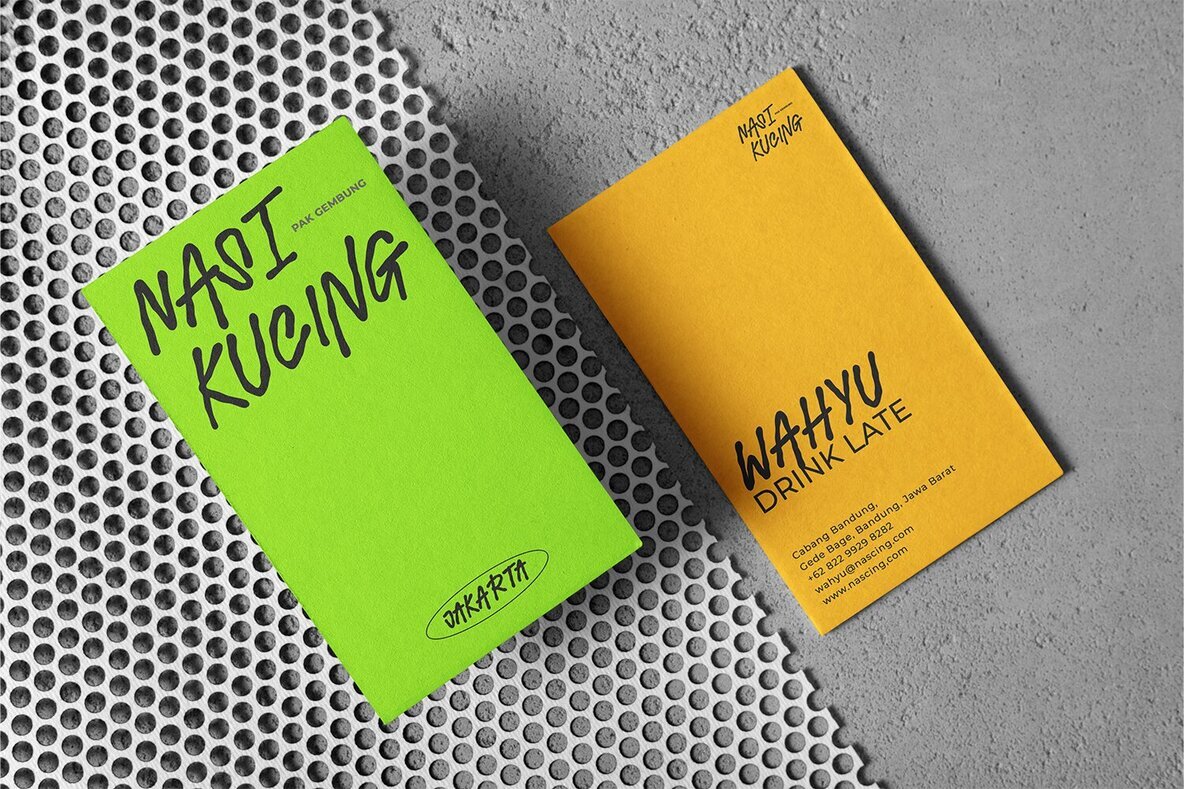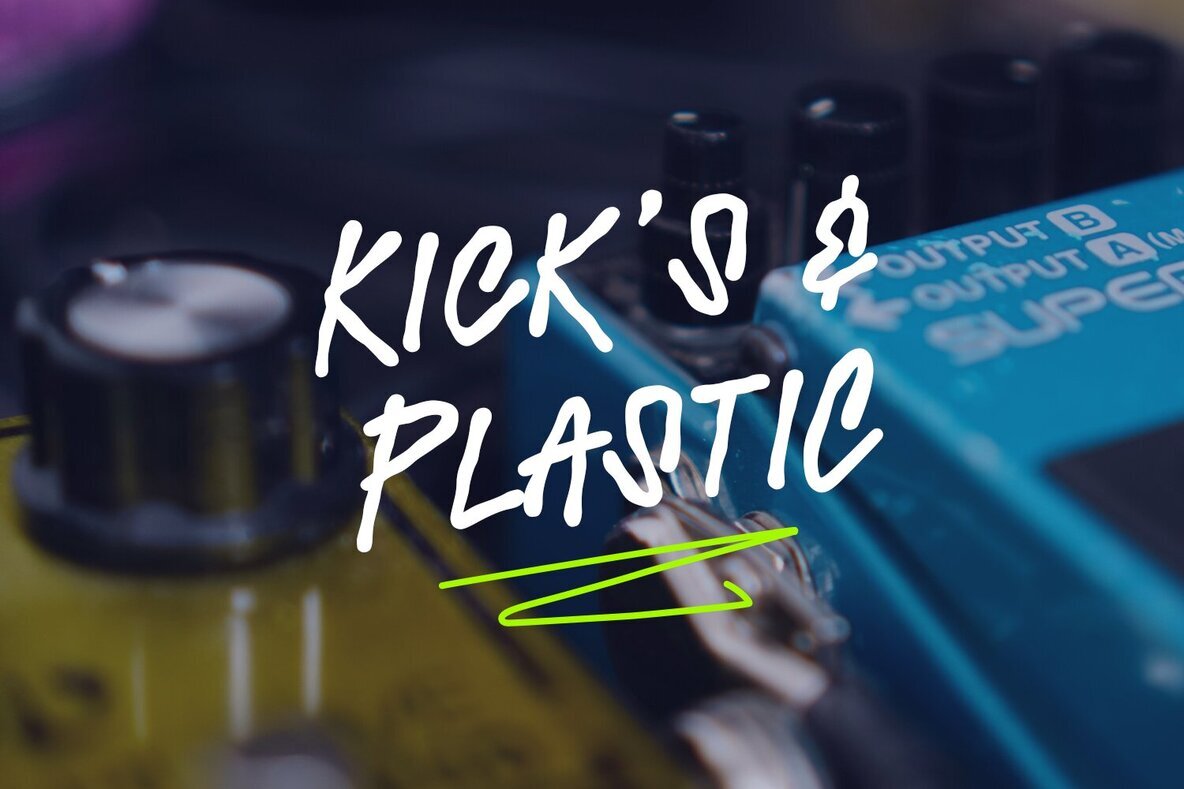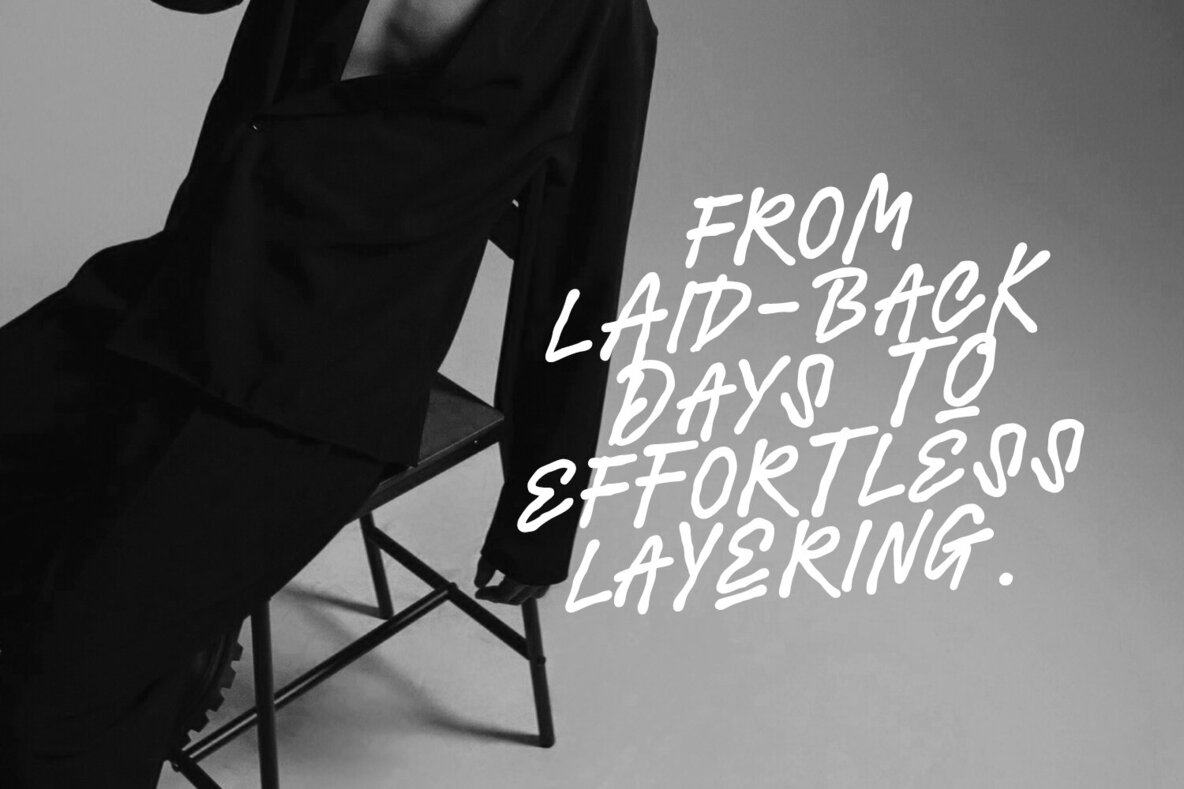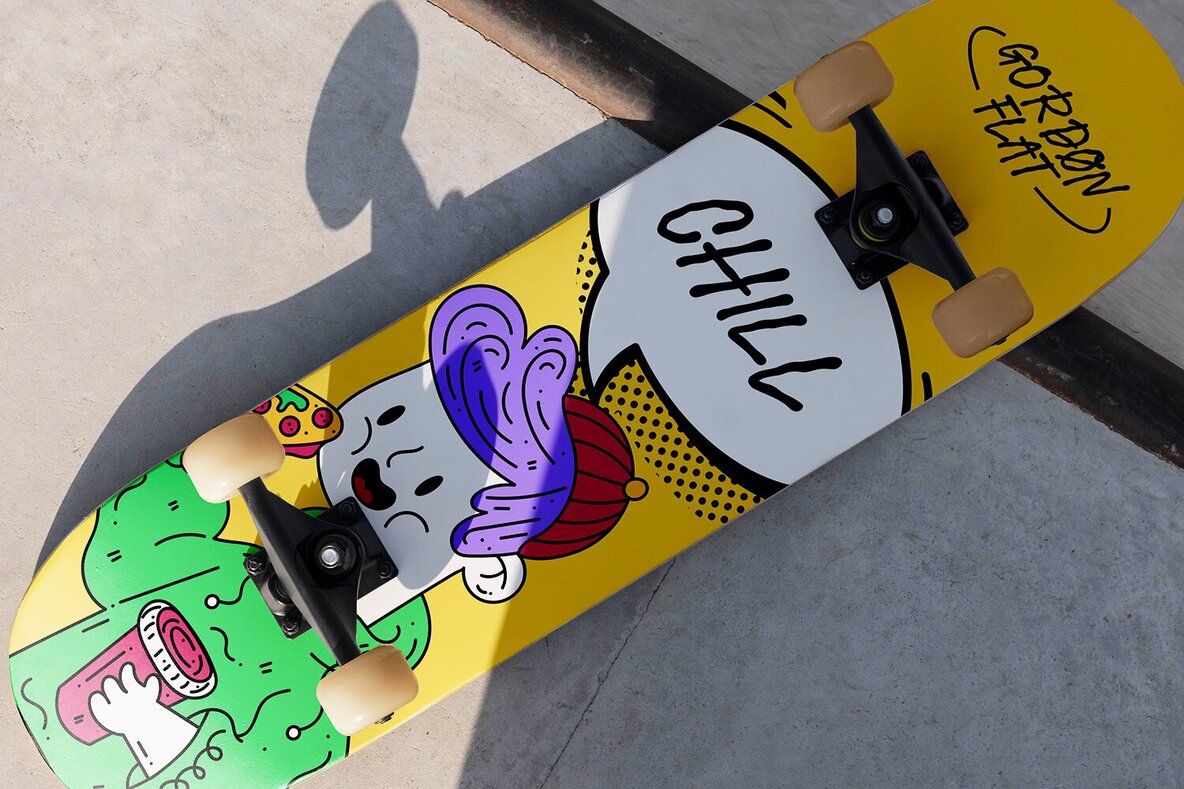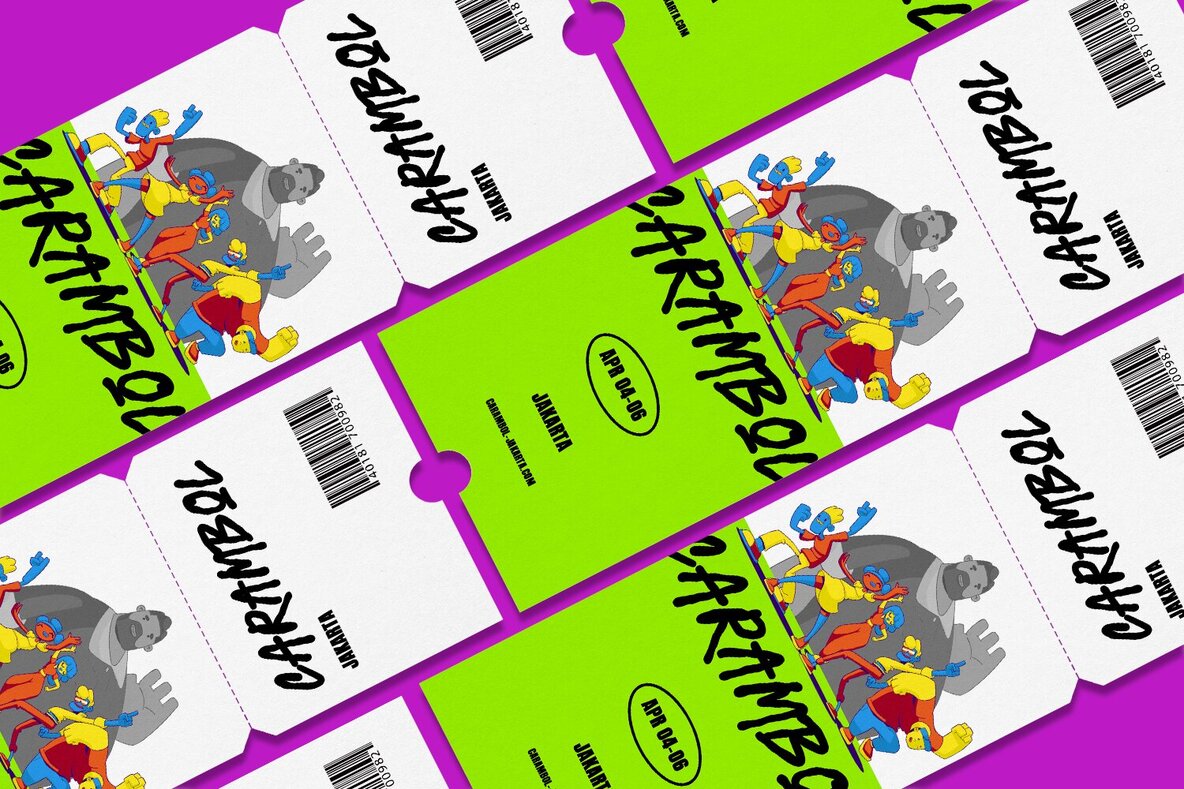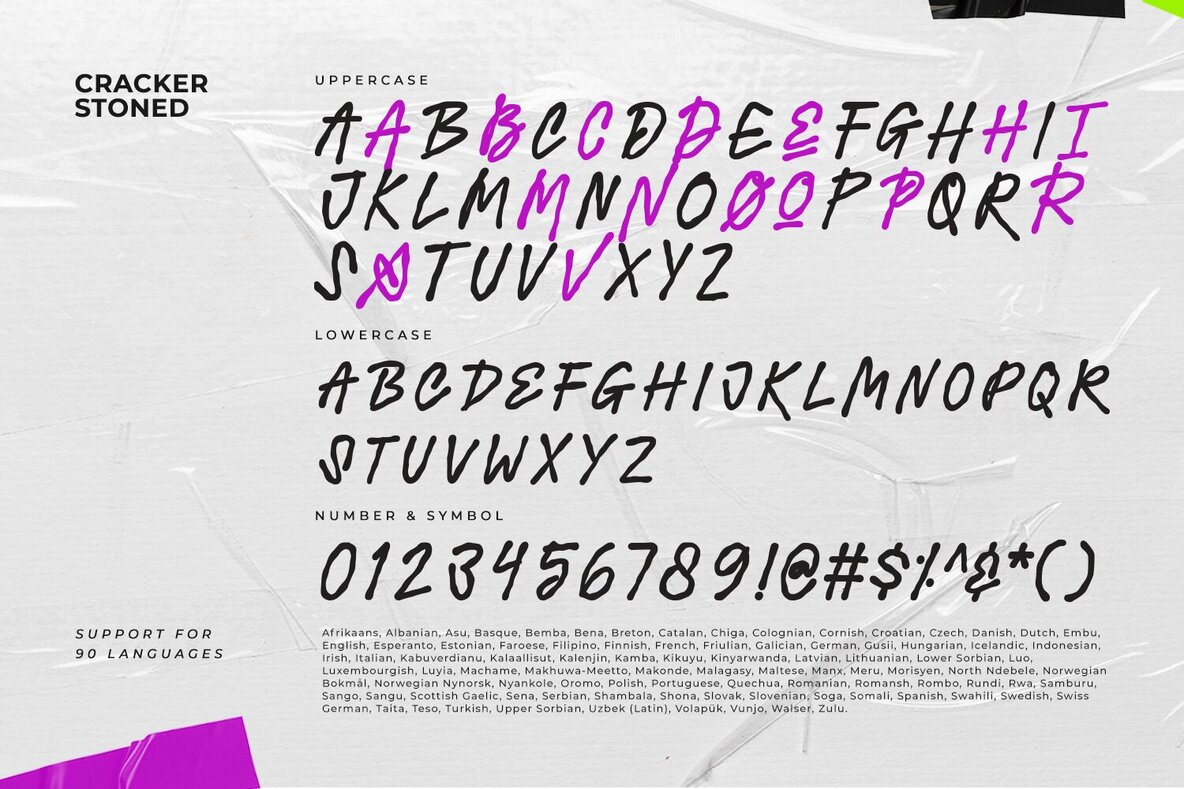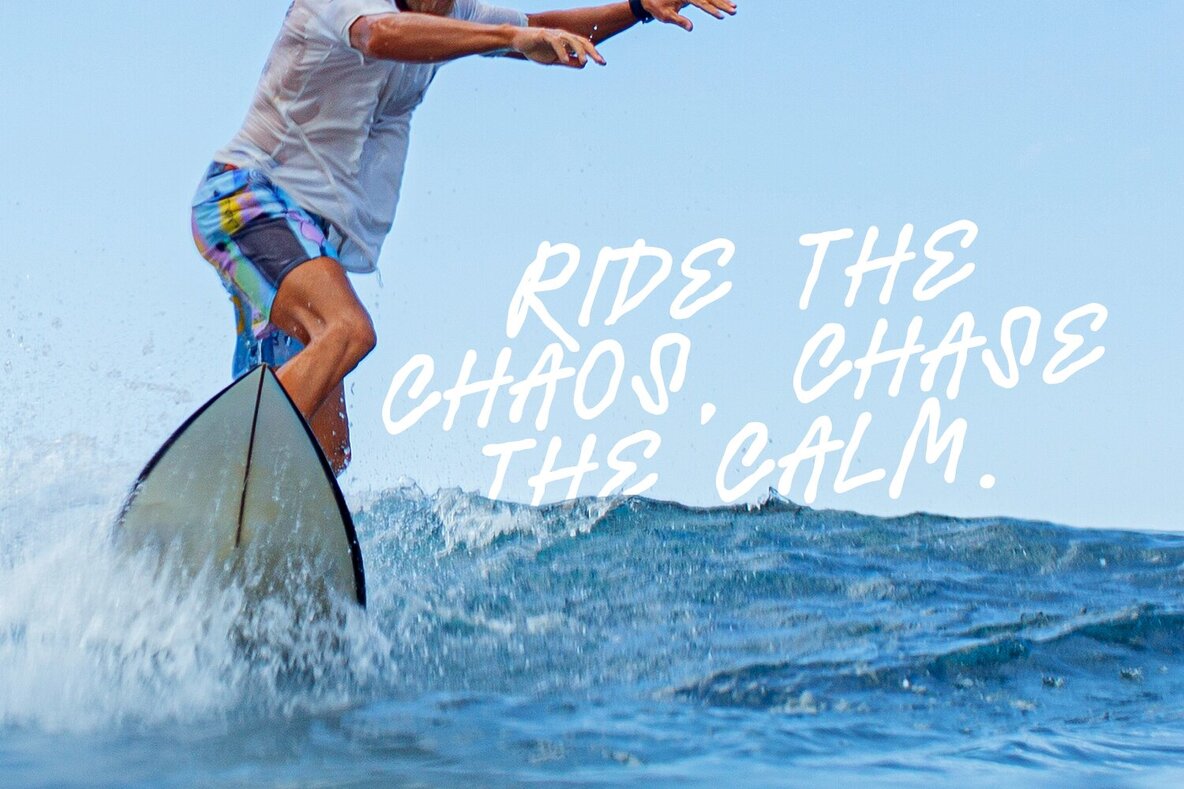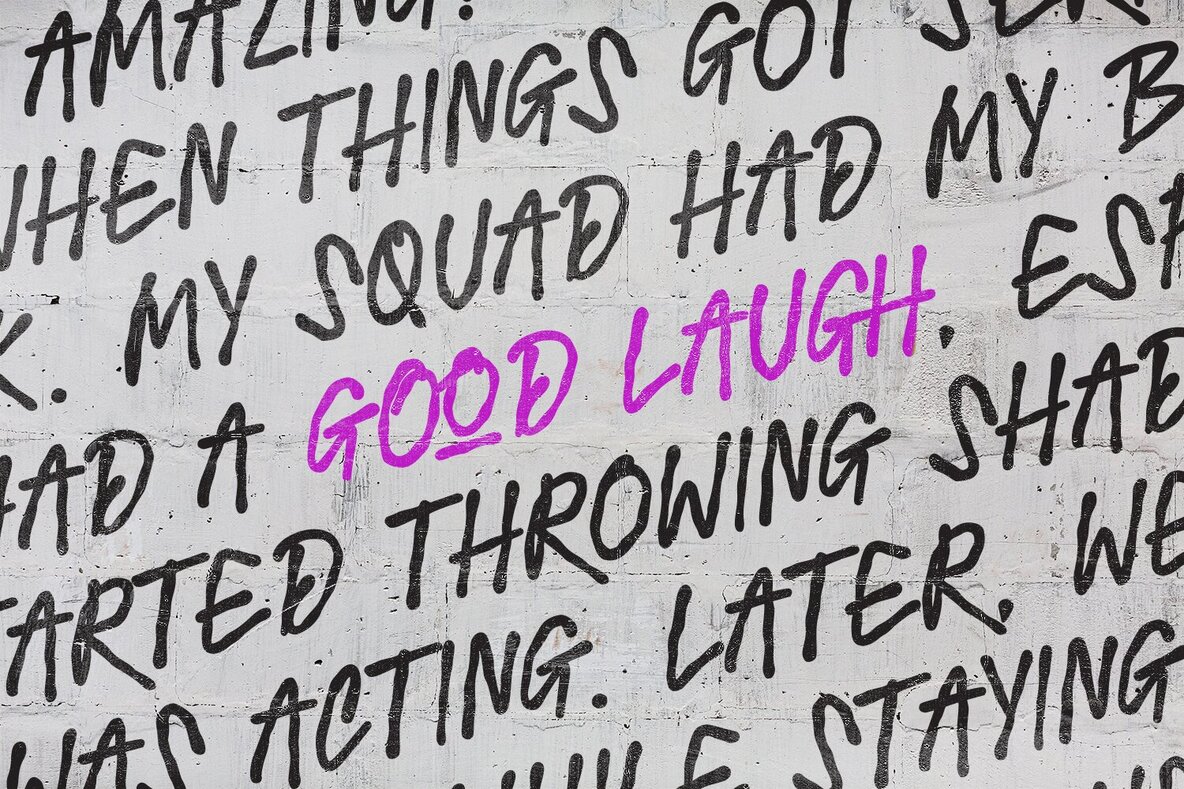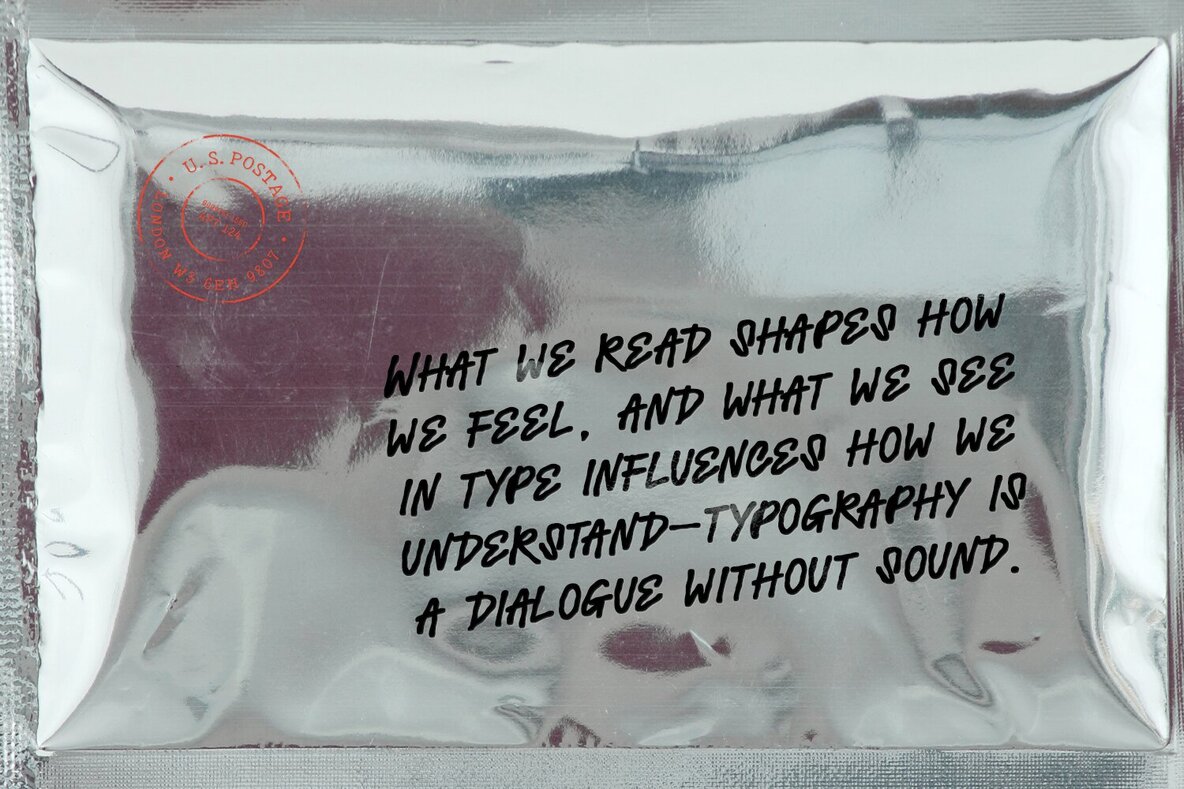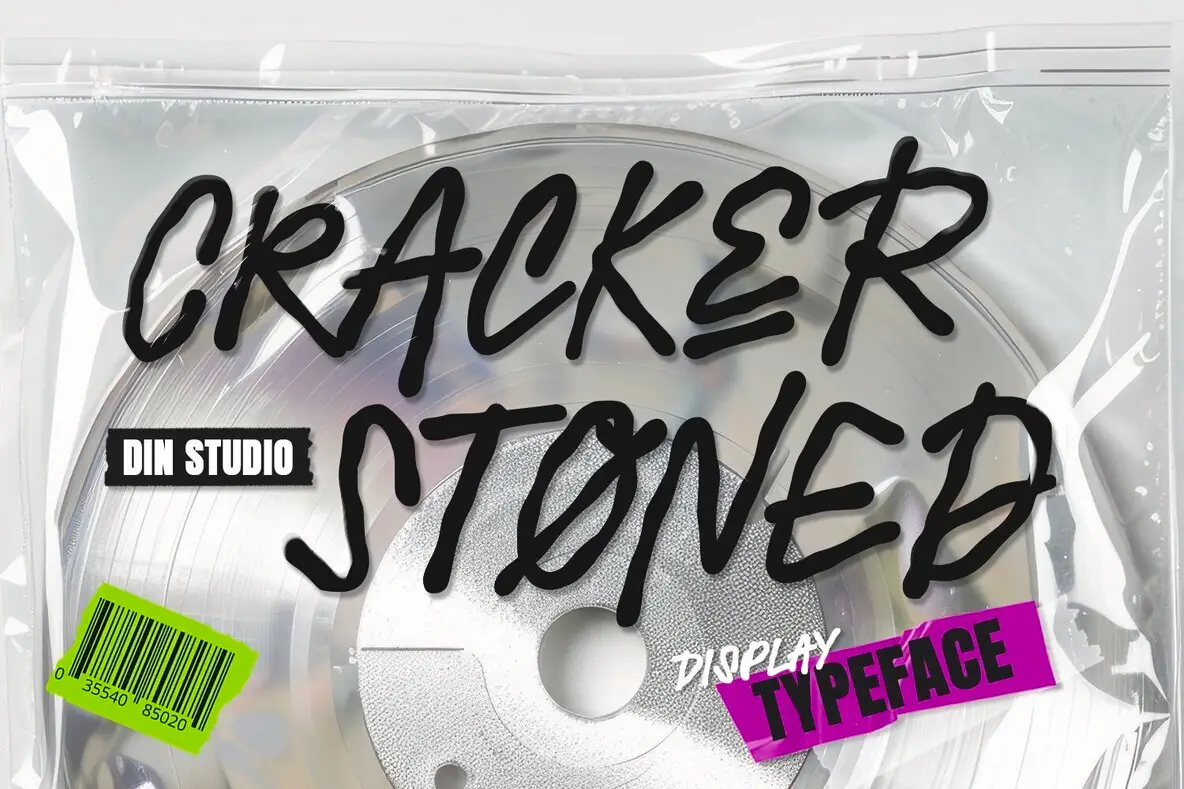
Cracker Stoned Font
Cracker Stoned Regular
Cracker Stoned is a distinctive display font that merges delicate lightness with playful wavy outlines, offering a fresh artistic vibe to your designs. Crafted with meticulous attention to detail, each letter maintains consistent proportions, delivering a harmonious and balanced look while exuding creative spontaneity. This unique style makes Cracker Stoned ideal for projects that require a blend of modern elegance and quirky charm.
Perfect for a variety of applications, Cracker Stoned is versatile enough to enhance logos, posters, branding materials, and print media. Key features include multilingual support, PUA encoding, and comprehensive numerals and punctuations. Discover endless possibilities with this one-of-a-kind typeface, which adds an unmistakable creative touch to your work.